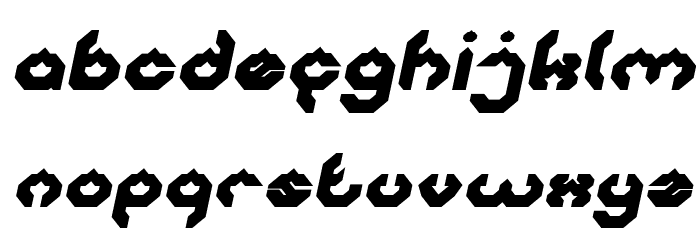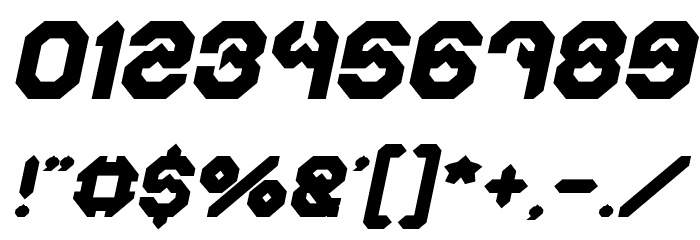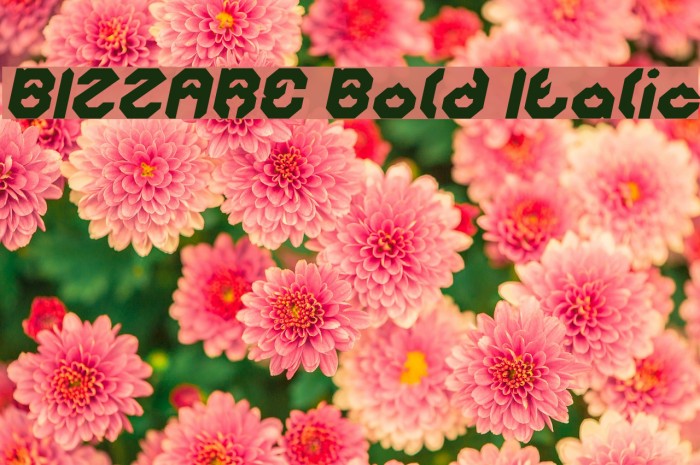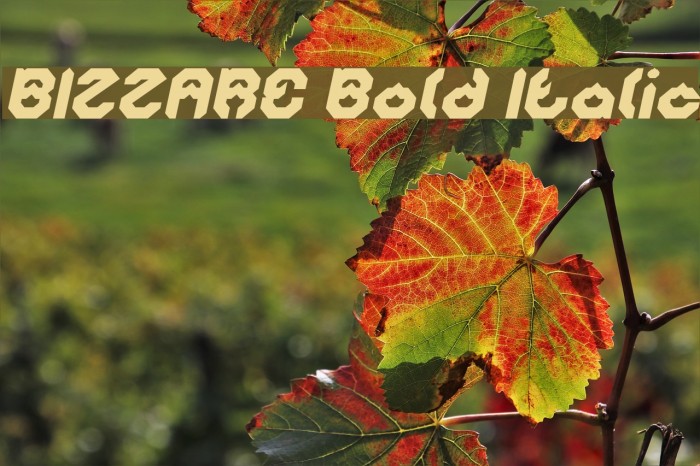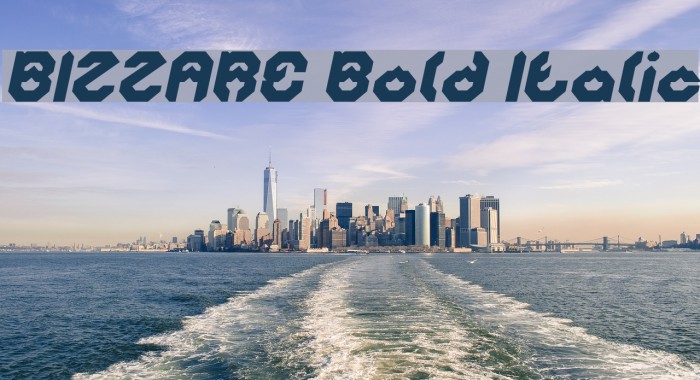
BIZZARE Bold Italic Font
This font exhibits a bold and italicized style with a unique, edgy appearance. The characters are angular and geometric, giving them a futuristic and dynamic feel. The uppercase and lowercase letters maintain a consistent design, with sharp edges and a slightly condensed form. Numbers and special characters follow the same stylistic approach, ensuring uniformity across all glyphs. The font's boldness and slanted orientation make it stand out, suitable for projects that require a strong visual impact.
A bold, italicized font with angular, geometric characters for a futuristic look.
- Proposed Projects: Ideal for sci-fi themed designs, video game graphics, posters, and branding that requires a modern and edgy aesthetic.